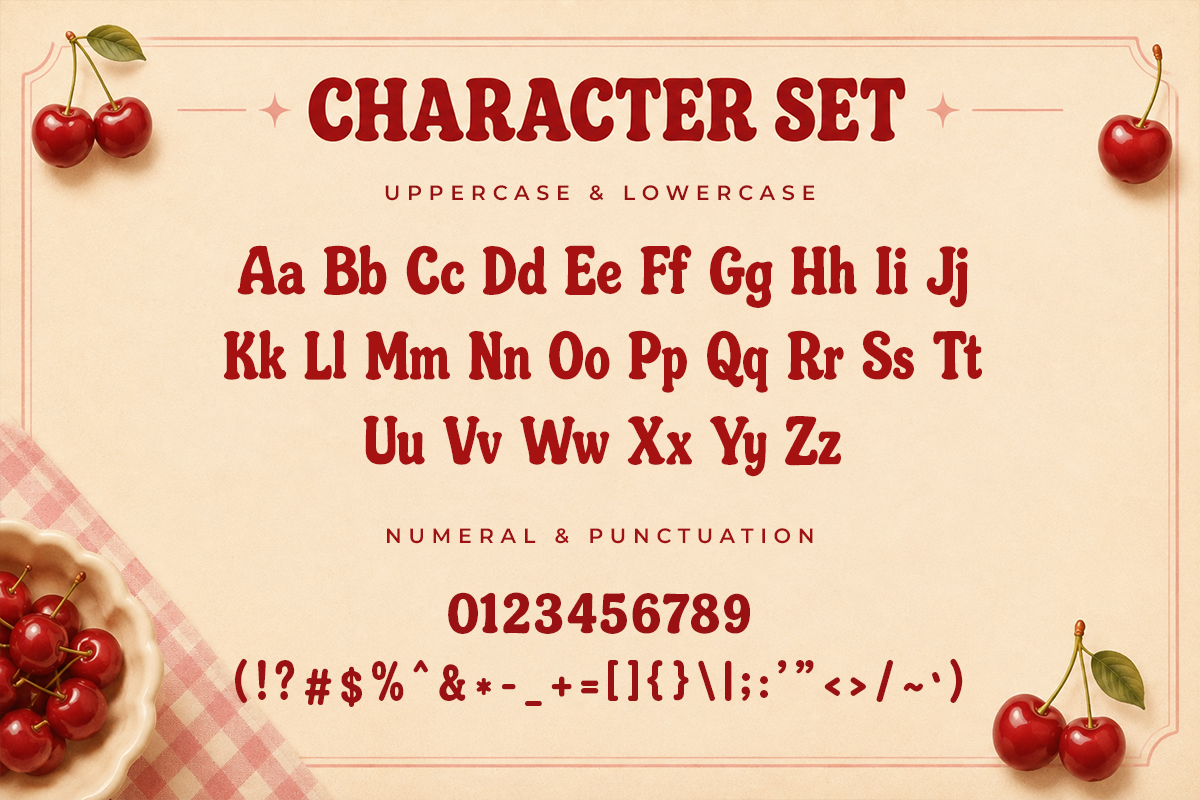
Sweet Cherry is a playful retro display font filled with charm, warmth, and nostalgic personality. Featuring bold curves, soft rounded shapes, and a vintage-inspired style, this typeface brings a fun and cheerful touch to any creative project.
Inspired by classic retro packaging, sweet treats, and colorful café aesthetics, Sweet Cherry is perfect for logos, branding, posters, food packaging, café menus, product labels, T-shirt designs, social media graphics, invitations, stickers, and vintage-themed designs.
Its bold and friendly character makes Sweet Cherry especially suitable for headlines, titles, and statement typography that needs to feel fun, memorable, and full of personality.For our customers, we provide a collection of The Best decorative Fonts, each with its own unique styles and characteristics, so that our customers can create any design they want. We know what our clients love! That is why we prepare everything you may need in one simple downloadable package for you. Our easy-to-grab package contains all of the files you will ever need to create beautiful typography!